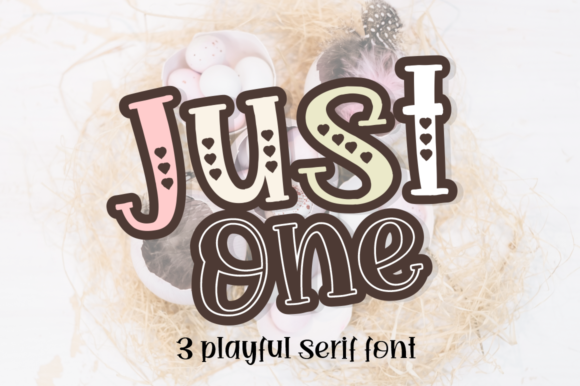
Introducing Just One Font, the display font that captivates hearts with its adorable and delightful charm. Immerse yourself in a world of whimsy and enchantment as you explore the endless possibilities this font offers. Whether you're a designer seeking the perfect touch for your creations or a creative spirit longing to add a dash of magic to your projects, Just One Font is your font soulmate.
Just One Font is the embodiment of cuteness and charm, a display font that dances across your screen with its playful and endearing personality. Its every curve and stroke is a testament to the artistry of its creator, artype07, who poured their heart and soul into crafting this font.
With Just One Font as your creative companion, you'll embark on a journey of delightful designs. Imagine your cartoon characters leaping off the page with infectious energy, your children's games bursting with vibrant charm, and every creation adorned with a touch of heartwarming loveliness.
This display font is a versatile chameleon, effortlessly adapting to your creative vision. It's the perfect font for adding a splash of fun to your marketing materials, creating eye-catching logos that demand attention, or crafting social media posts that resonate with your audience. The possibilities are as limitless as your imagination.
Don't resist the allure of Just One Font, the font that transforms your designs into captivating masterpieces. Its irresistible charm will leave an indelible mark on your audience, forging an emotional connection that lingers long after they've encountered your creations.